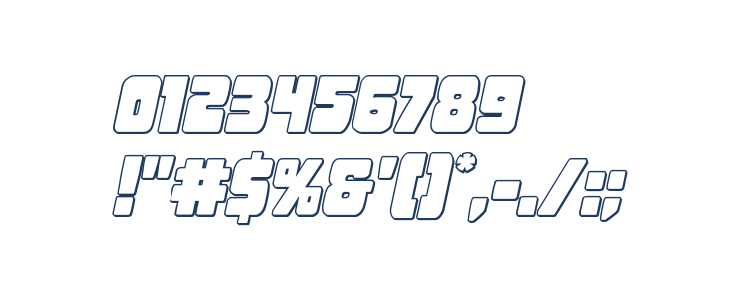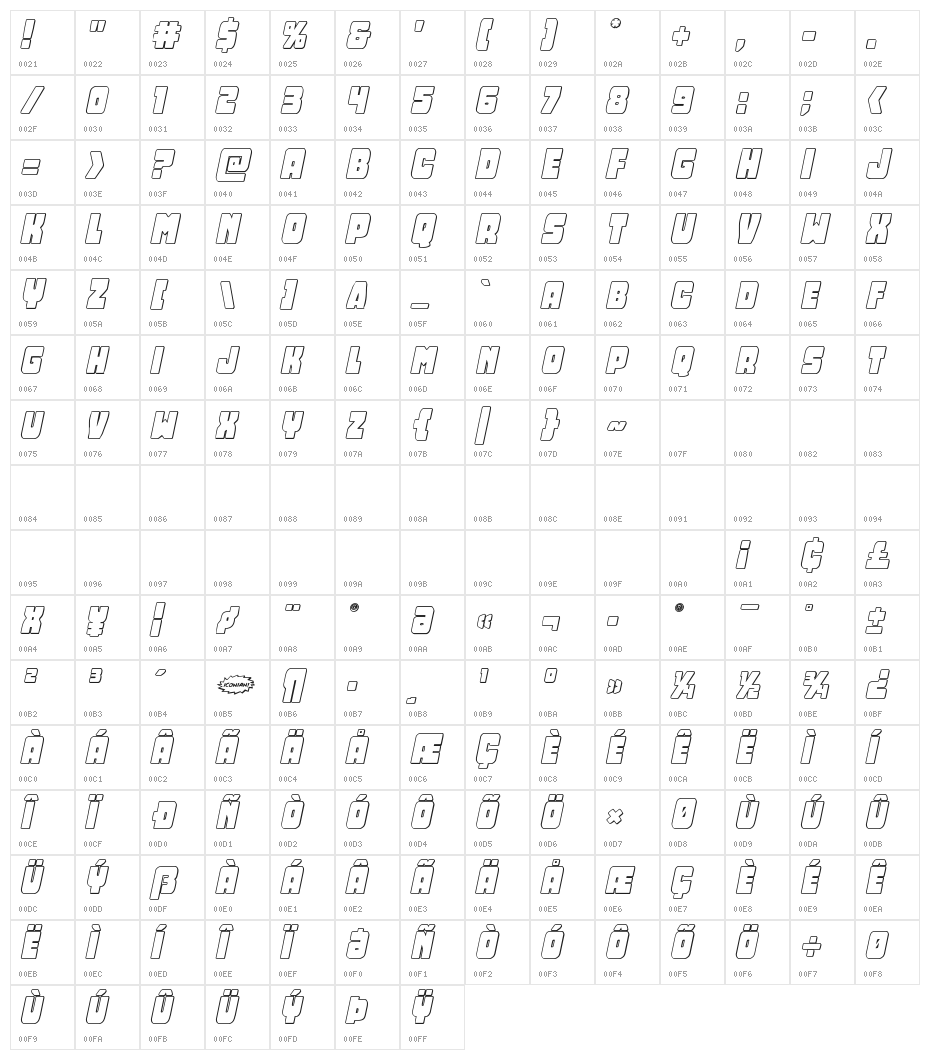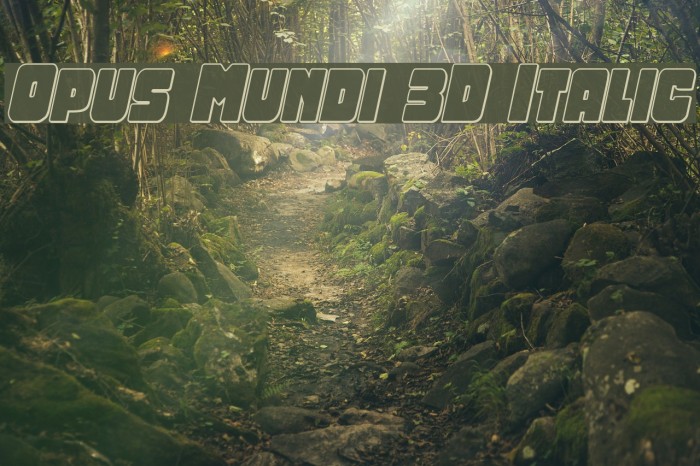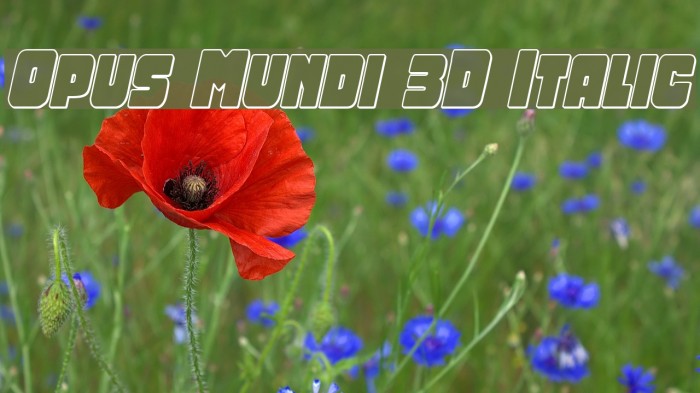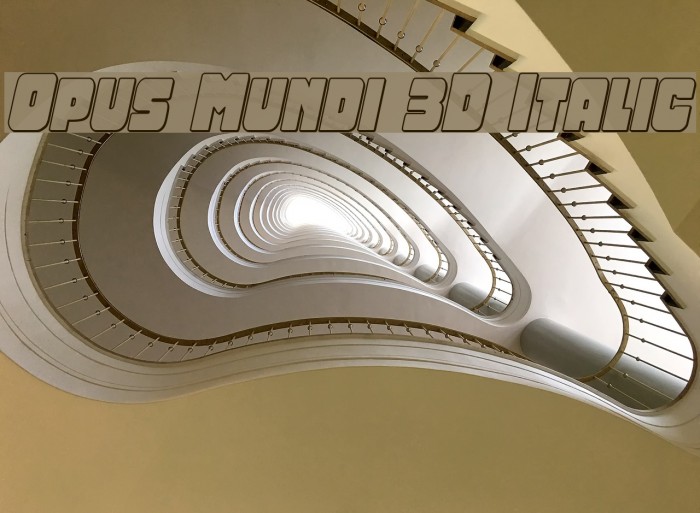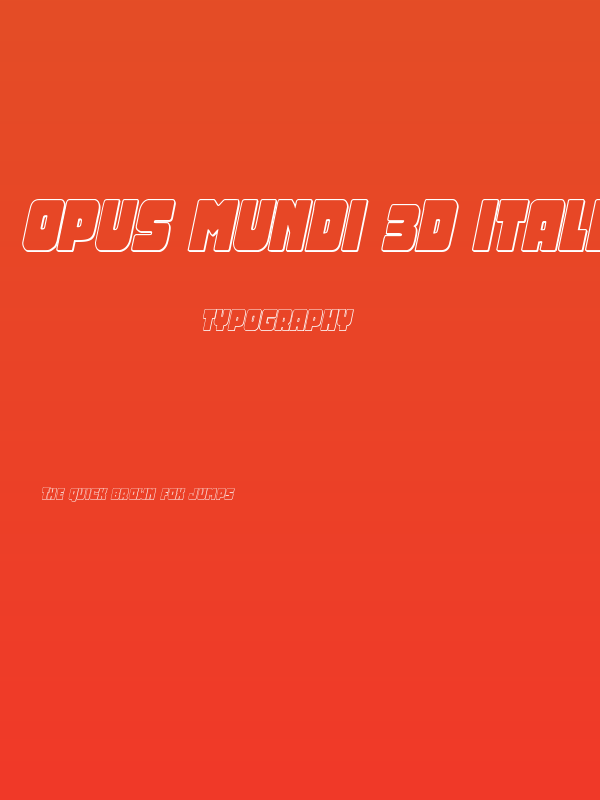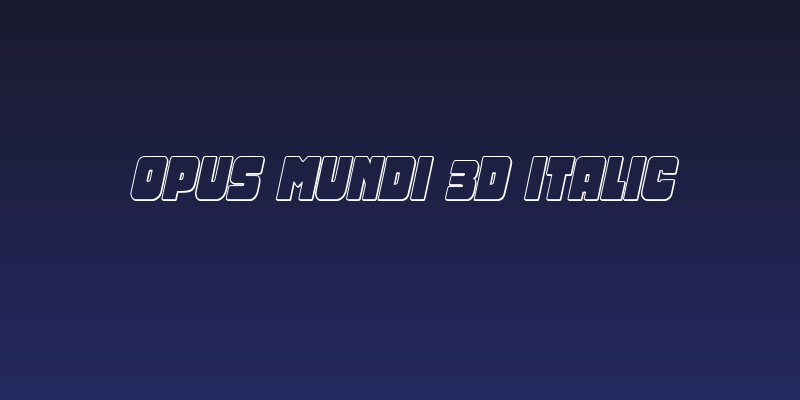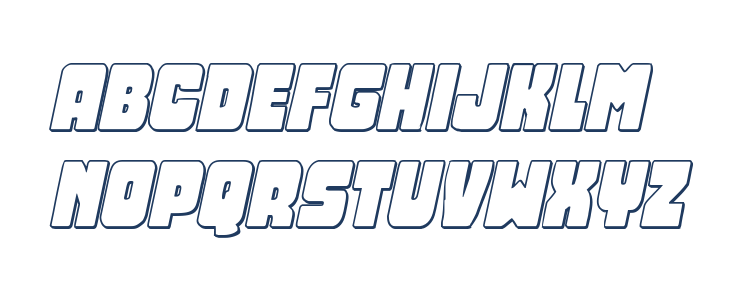
Opus Mundi 3D Italic Font
Opus Mundi 3D Italic Description
This font features a bold, three-dimensional style with a distinct italic slant, giving it a dynamic and modern appearance. The characters are outlined, creating a striking visual effect that enhances their boldness. The uppercase and lowercase letters maintain a consistent style, with rounded edges and a uniform thickness that contributes to the font's cohesive look. The numerals and special characters are designed to match the alphabetic characters, ensuring a seamless integration across different uses. This font's unique 3D effect and italicized form make it stand out, suitable for projects that require a strong visual impact.